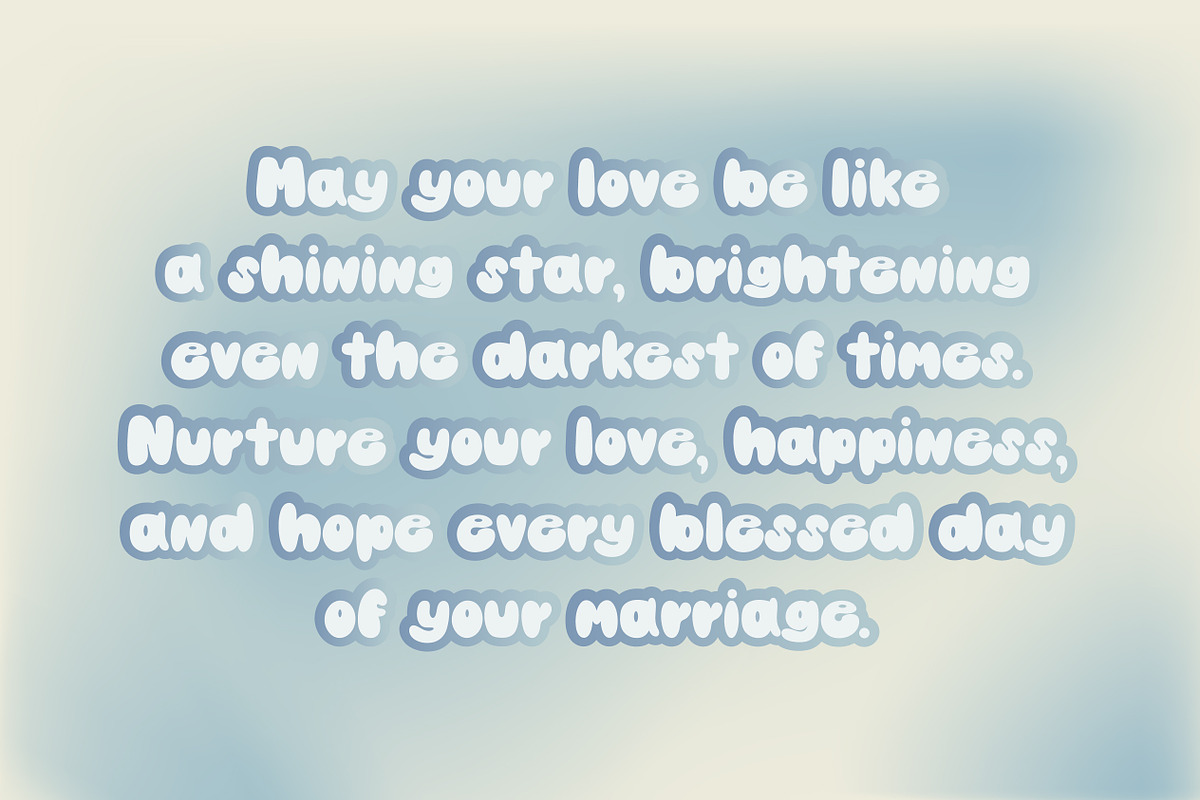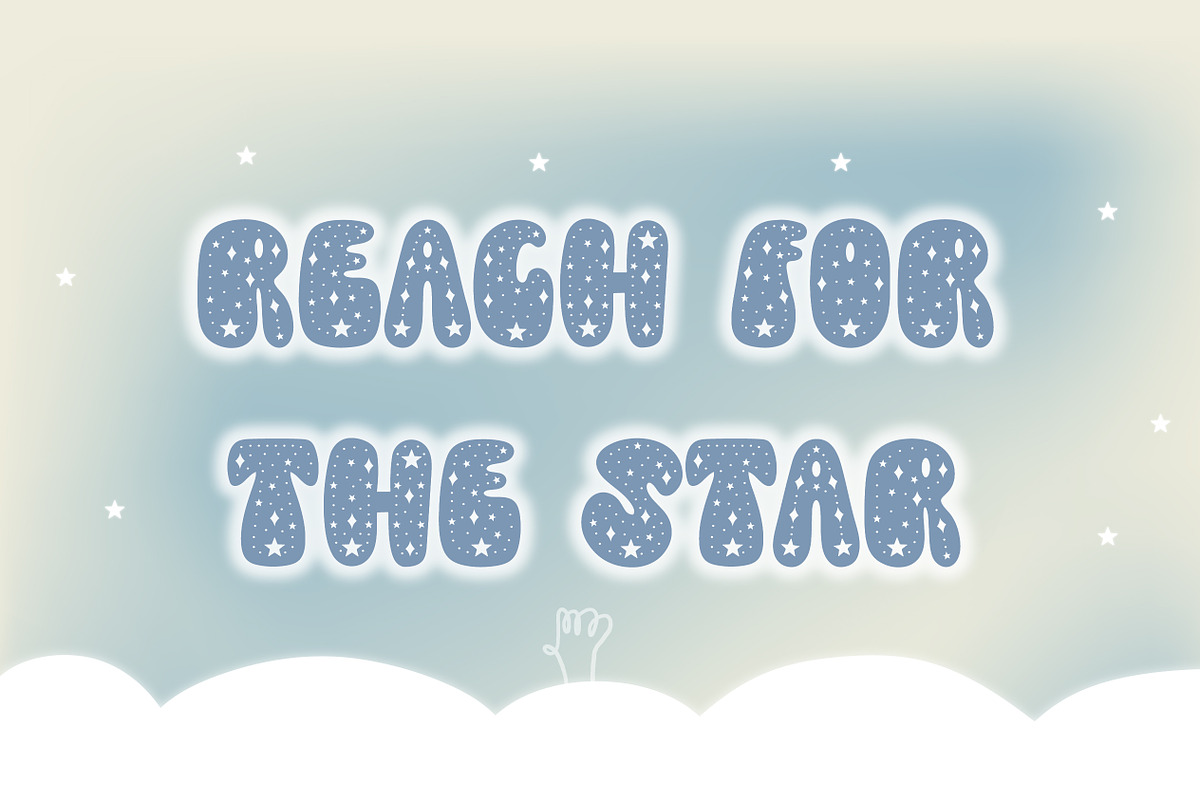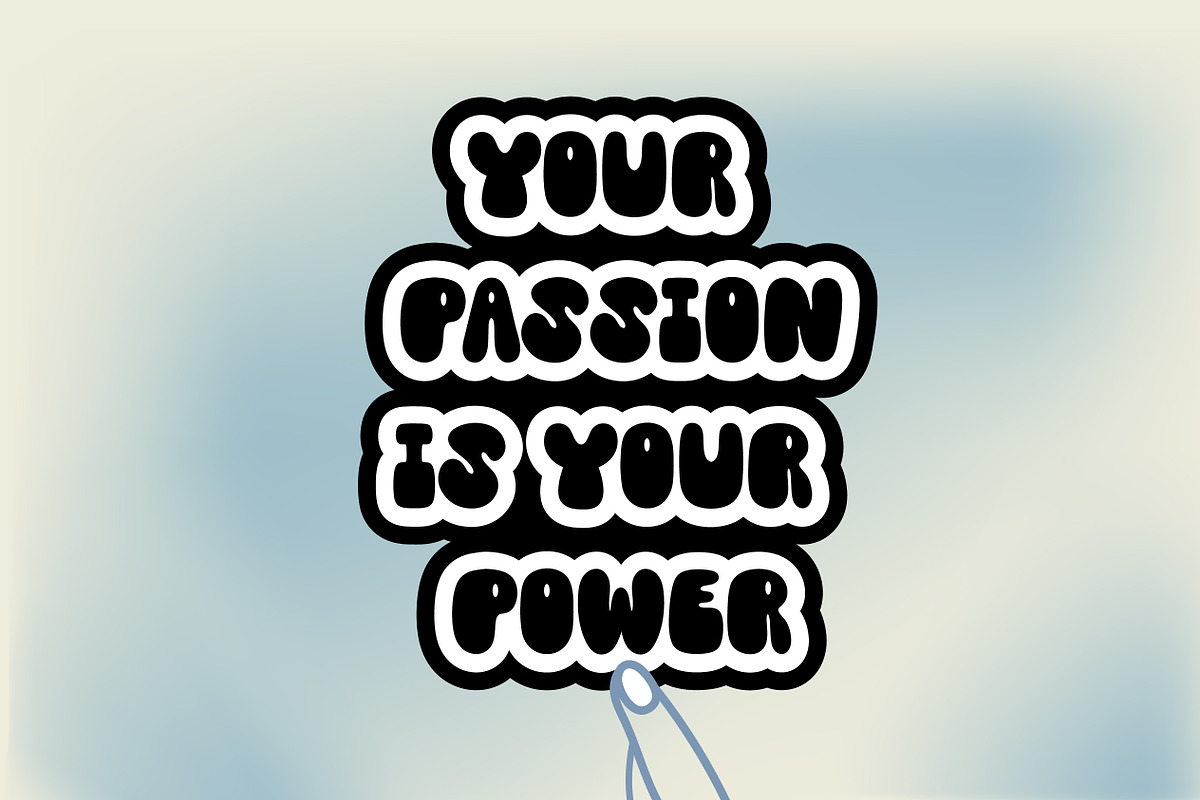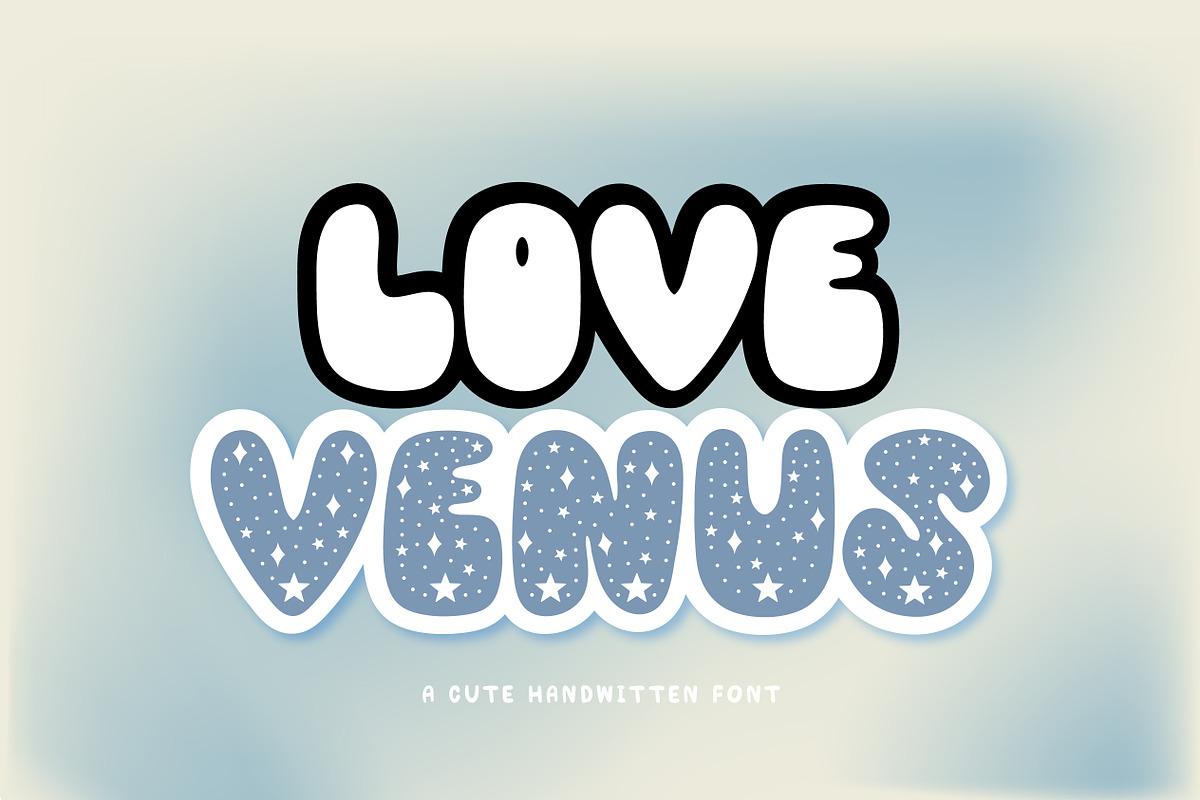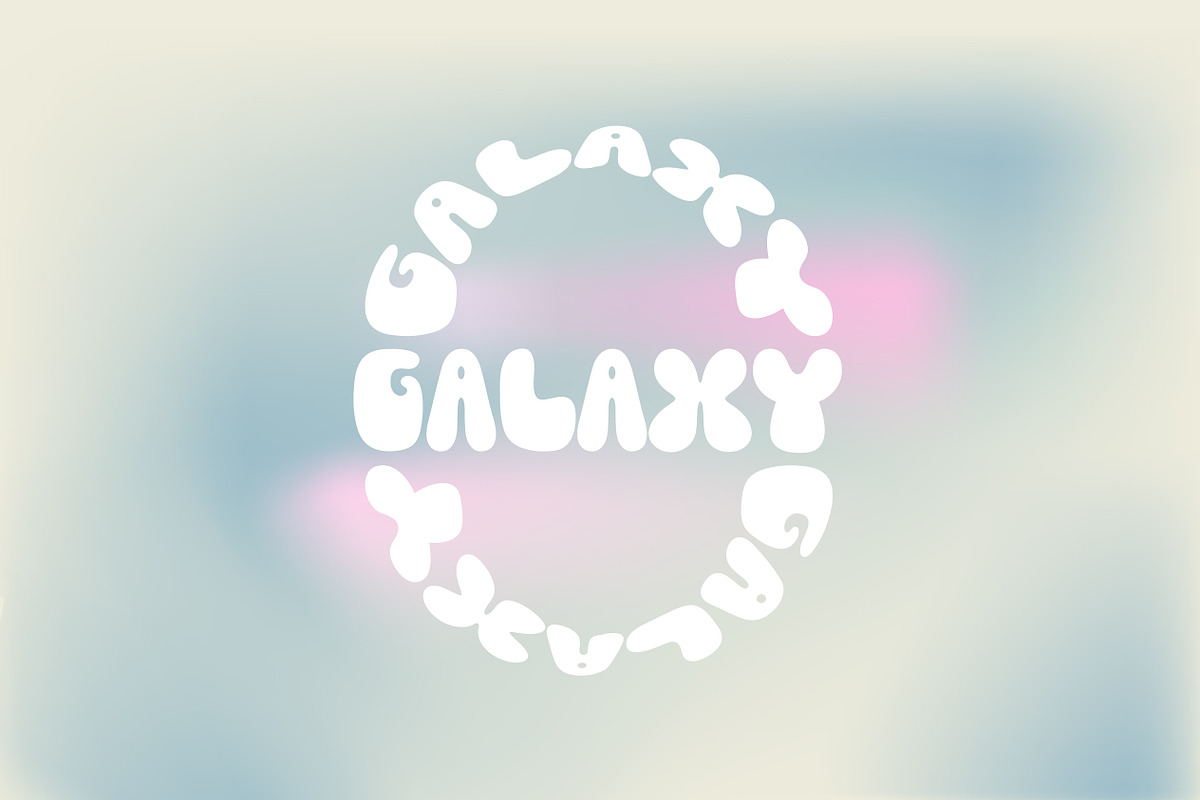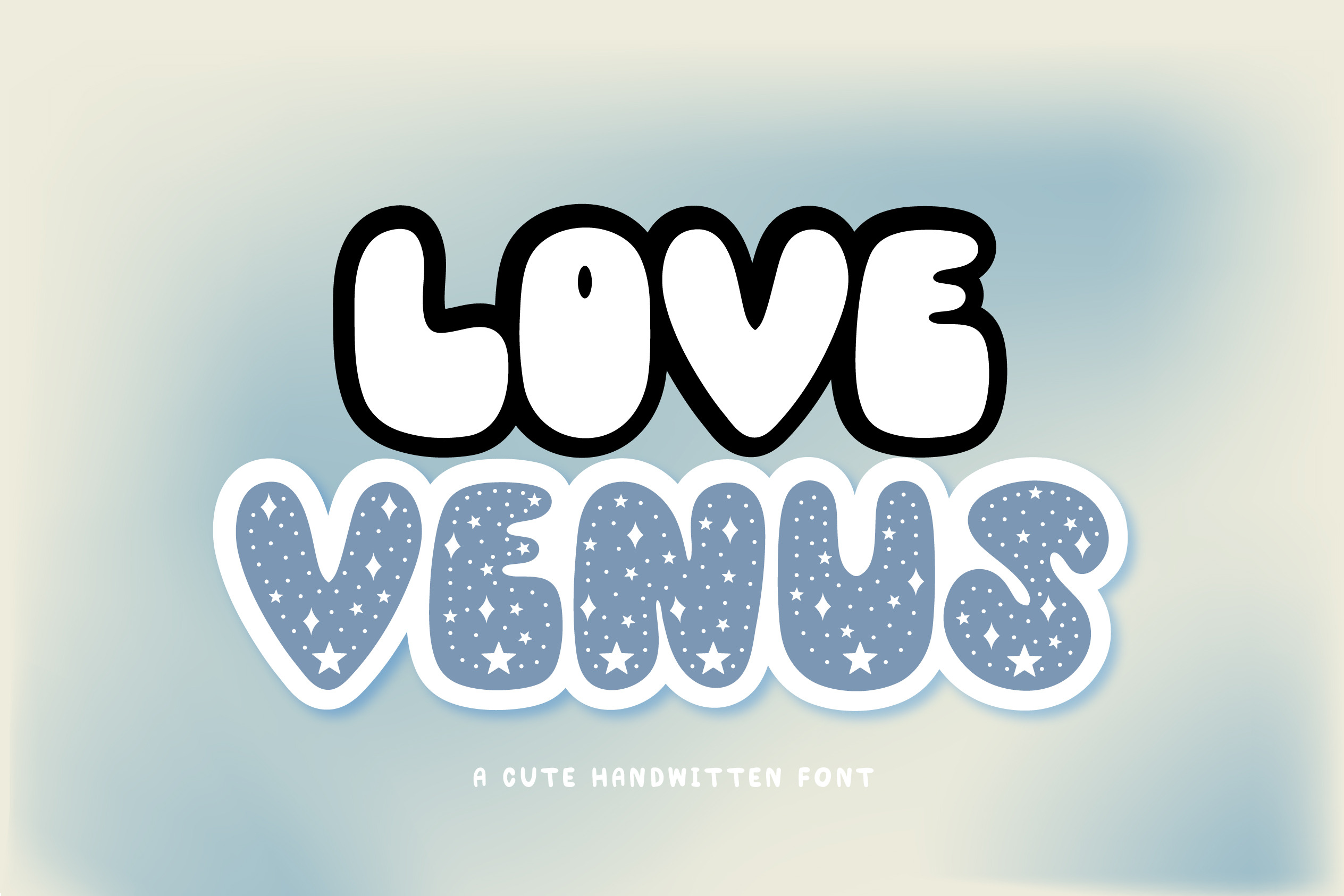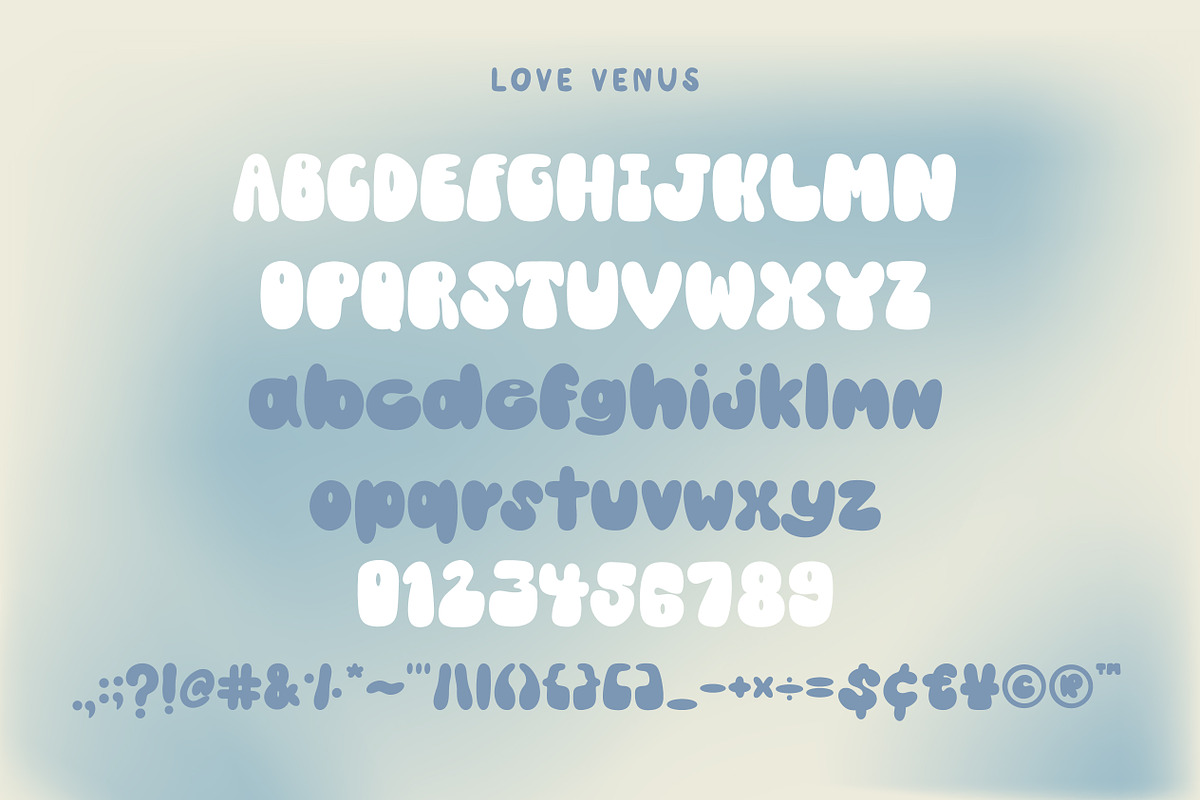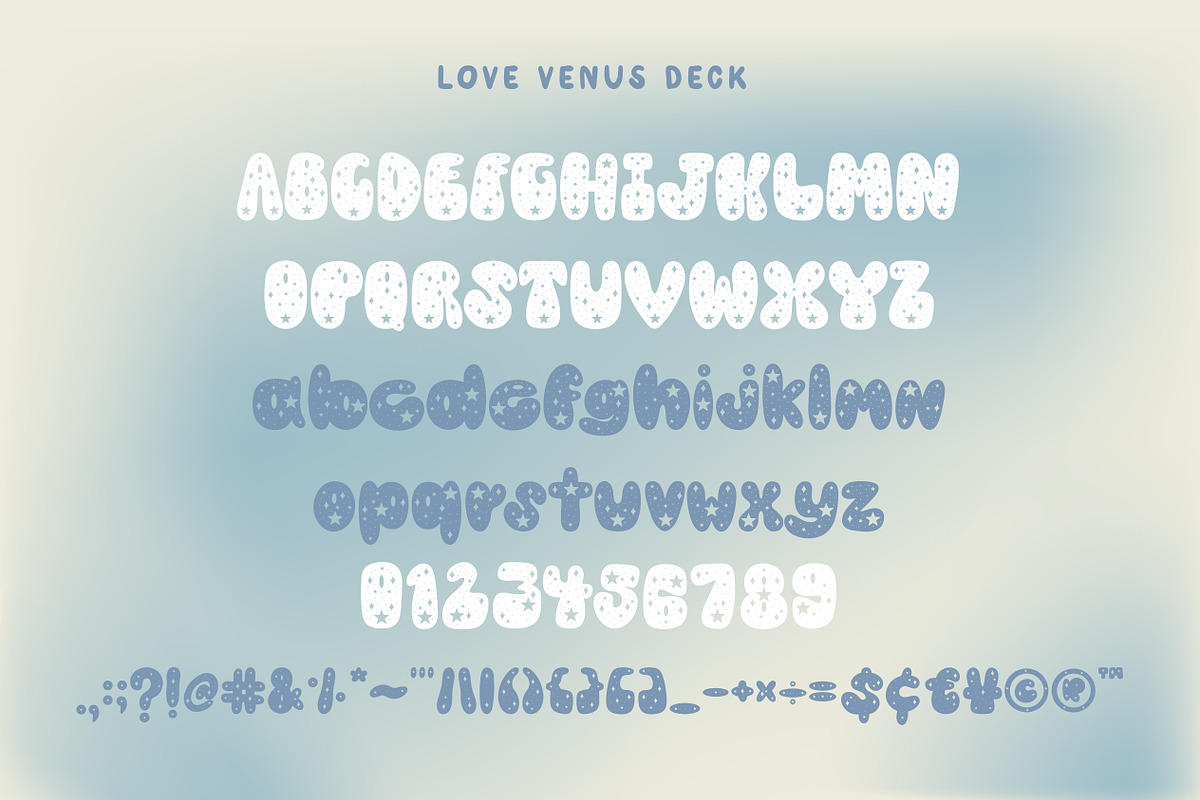
LOVE VENUS - A CUTE FONT
Love Venus is a cute font that is available in two styles: display font and decorative font. Inspired by the stars in the sky with a hint of Groovy vibes, this font is versatile and suitable for headlines and body text.